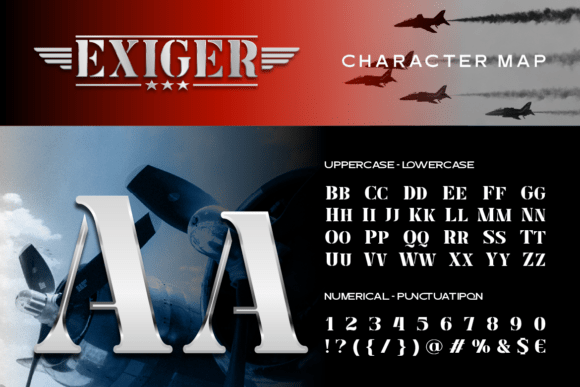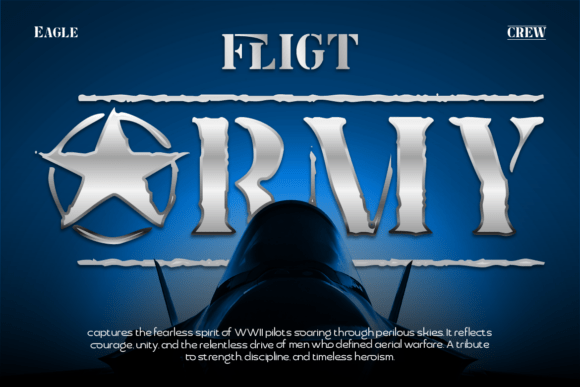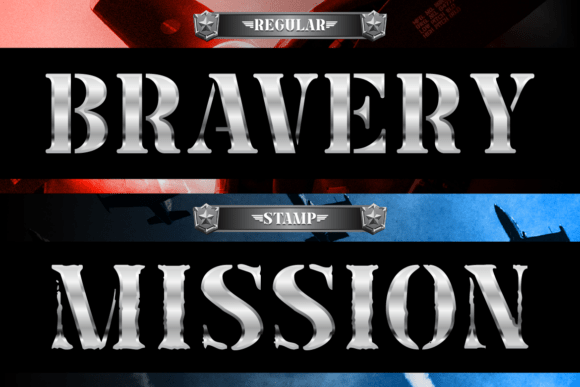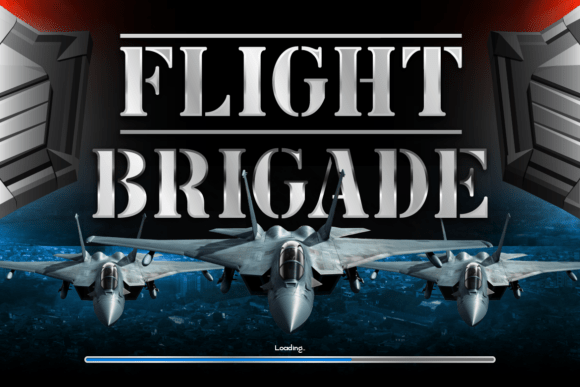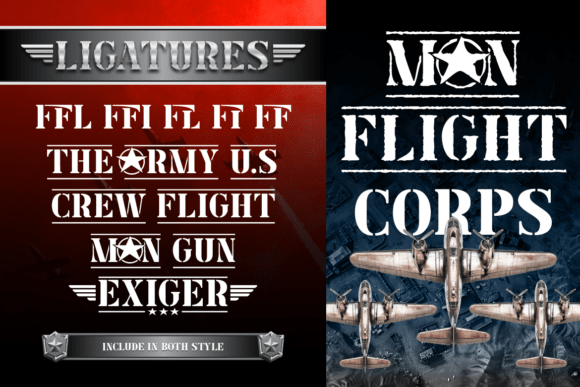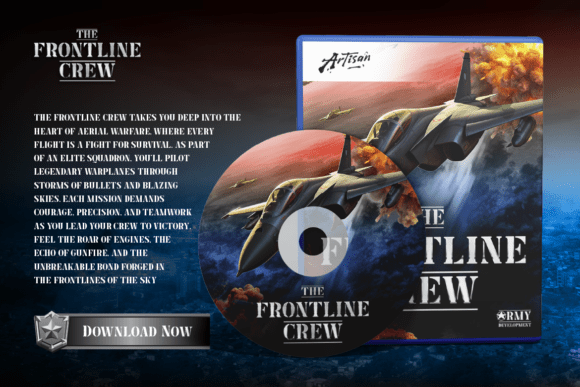
Introduction to Exiger Font
Introducing Exiger, inspired by the markings on fighter jets, ammunition crates, and tactical aircraft panels, this font carries the bold authority of military engineering.
Every line, cut, and shape is built with purpose — sharp, structured, and unapologetically strong Designed with authentic stencil detailing, Exiger brings instant military attitude to any visual.